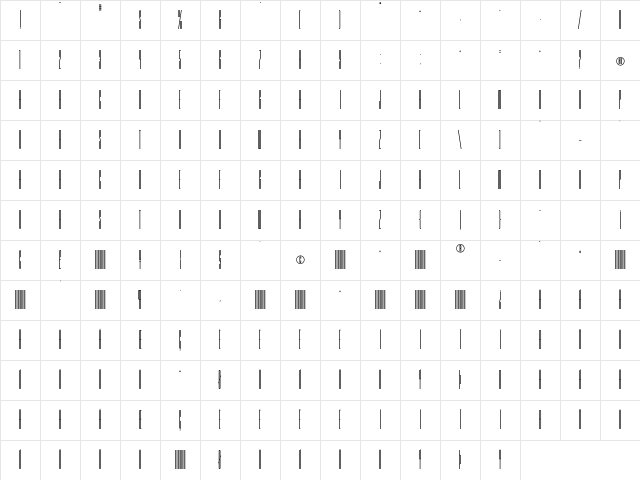
Barcode Four
Style: Four
Design Context for Barcode
Barcode uses fixed-width spacing throughout, giving it the structured, systematic character associated with coding environments and technical documentation.
Pro Tip: Use Barcode with slightly increased line-height for extended reading - fixed-width spacing can feel dense in longer passages without extra breathing room.